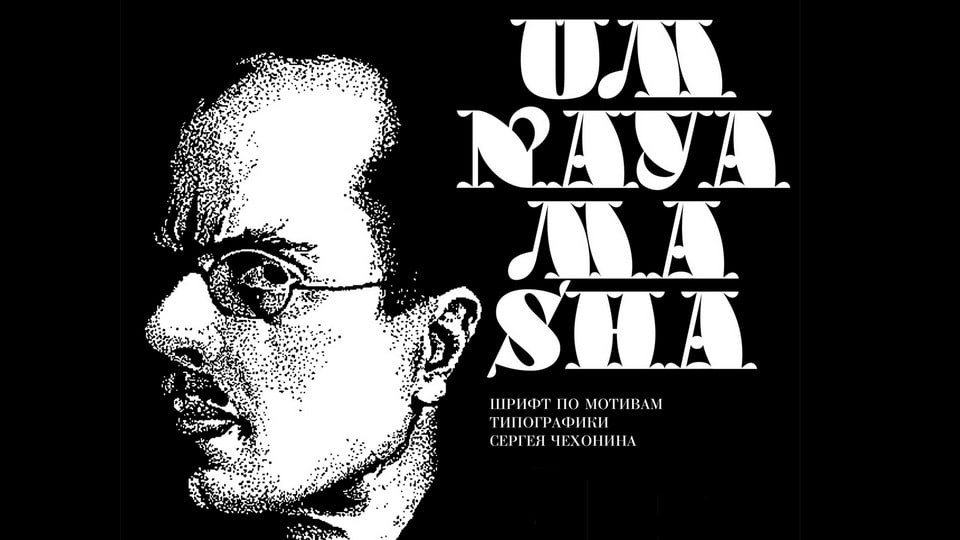
Download Umnaya Masha font, a display typeface based on typography and graphics by S. Chekhonin. Umnaya Masha is a modern typeface that can be used in the context of visual communications of the 21st century.
Designer: Ksenia Burlankova